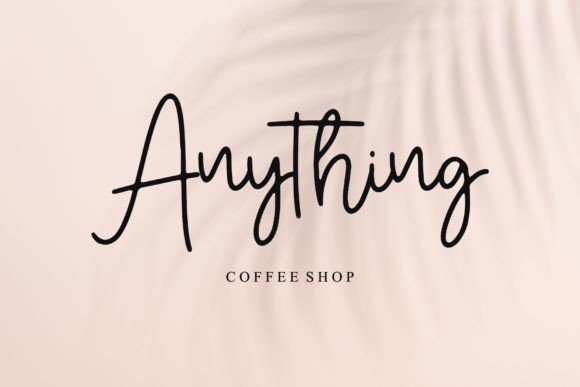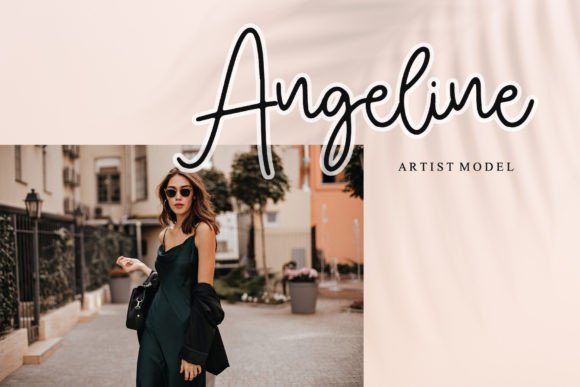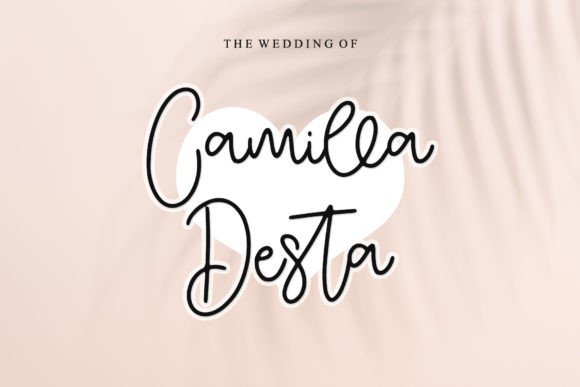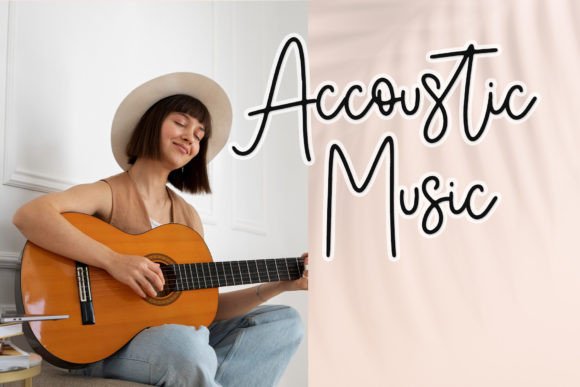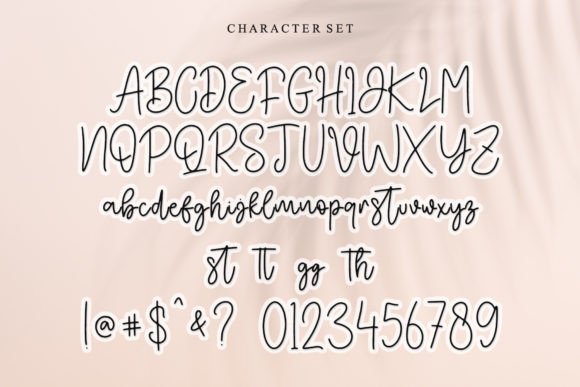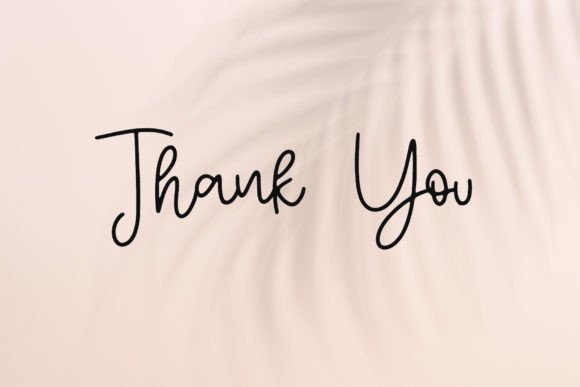
Introduction to Janitta Font Font
Fonts play a crucial role in design, and the Janitta Font font is a typeface that brings both character and versatility to any project. Whether you’re working on a branding project, a website, or a print design, the Janitta Font font offers a unique style that can elevate your work.
Janitta is a simple handwritten monoline font.
This font is perfect for logos, greeting cards, a package design, brand identity, craft design, any DIY project, book title, wedding invitation, packaging, and more .
Key Features of Janitta Font Font
• ✅ High-quality typeface designed for professional use
• ✅ Includes a wide range of glyphs and characters
• ✅ Ideal for logos, branding, websites, and print
Why Choose Janitta Font Font?
The Janitta Font font is more than just a typeface – it’s a design tool that helps you communicate your message with style and clarity. Its unique character set and versatile design make it suitable for a wide range of applications, from elegant invitations to bold headlines.
With its carefully crafted letterforms and balanced proportions, the Janitta Font font ensures readability and visual appeal across all mediums.
What makes Janitta Font font special?
The Janitta Font font stands out with its unique design, exceptional readability, and versatility across various design applications.